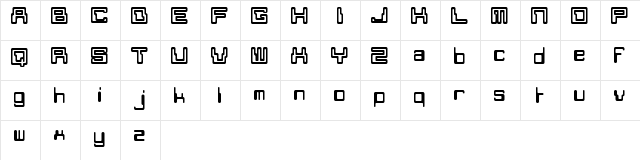
Moonmonkey Regular
| Designer | anfa |
Design Context for Moonmonkey Typeface
Moonmonkey is a composed and adaptable typeface that performs quietly and consistently across a wide range of design contexts.